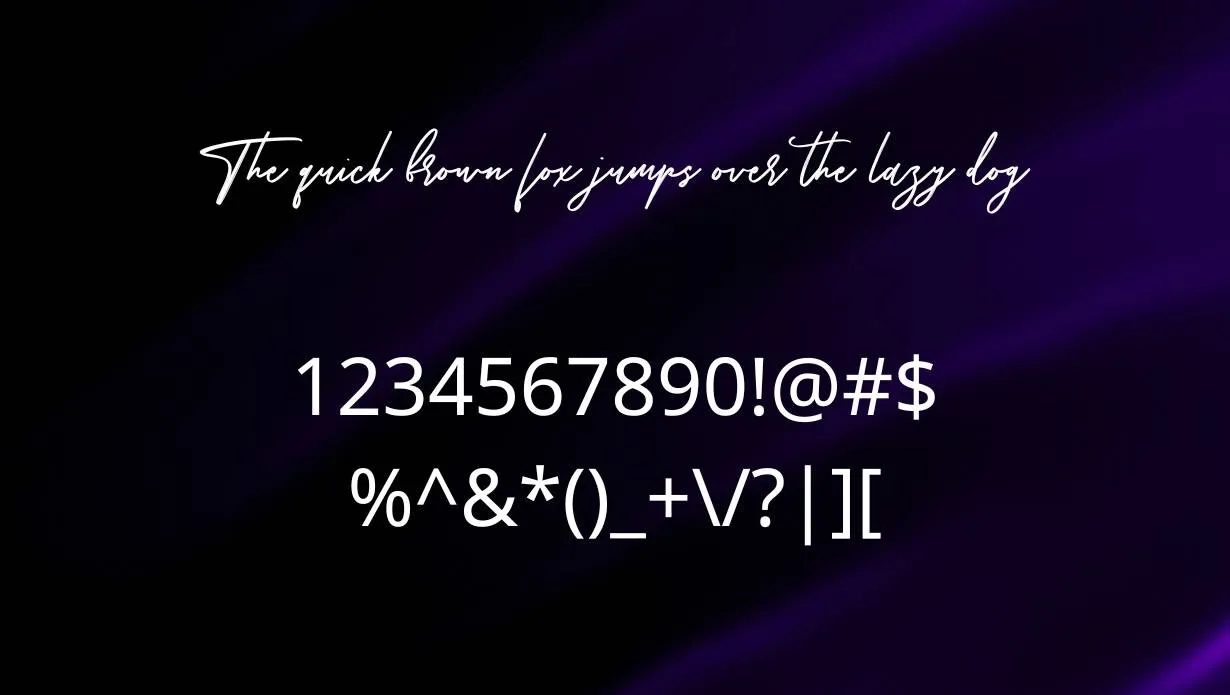
Mombay Font is a flexible and approachable font that is perfect for various design purposes. With its relaxed yet captivating style, it is ideal for invitations, posters, social media visuals, and personal branding.
| Name | Mombay Font |
| Designer | Maulana Creative |